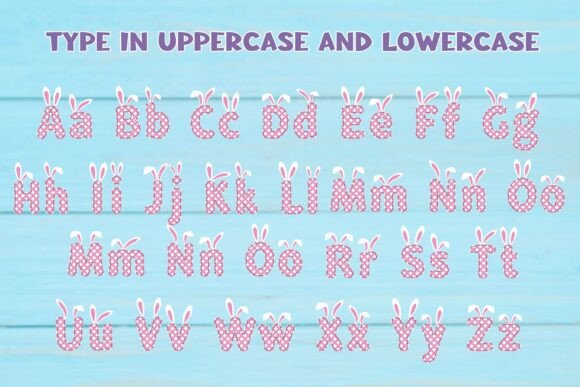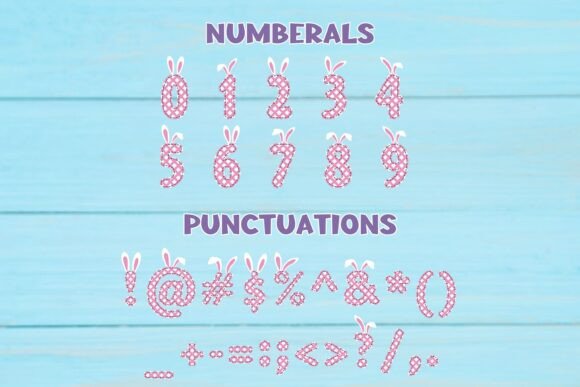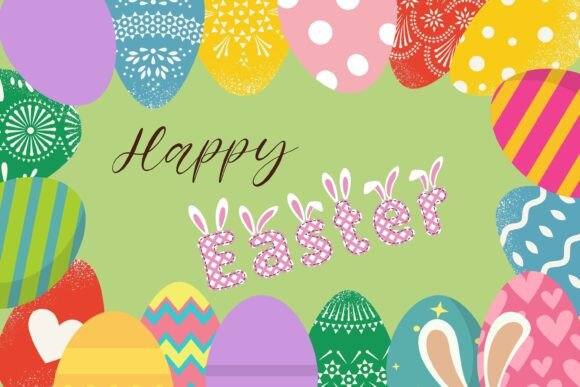
Introduction to Pink Easter Bunny Font
As a designer, have you ever found yourself brainstorming ideas for a festive Easter-themed project, only to be struck by the perfect vision, but hindered by the lack of the perfect design resource? We’ve all been there, and that’s exactly why we’re excited to introduce the Pink Easter Bunny Font – a vibrant, playful color font that brings a touch of magic to every Easter-inspired design.
With its captivating character and wide range of creative possibilities, the Pink Easter Bunny Font is a valuable addition to any designer’s toolkit. Whether you’re working on a t-shirt design, crafting digital imprints, or creating decorative cards, this enchanting font effortlessly melds with your project, elevating it to new heights. Plus, with its transparent background and high-quality design, you can rest assured that your project will stand out from the crowd.
Key Features of Pink Easter Bunny Font
- Transparent Background: The Pink Easter Bunny Font offers a transparent background, making it perfect for creative projects that require a seamless integration with other design elements.
- High-Quality Design Resource: This font is a high-quality design resource that can elevate your Easter-themed projects with its unique and playful style.
- Unique Characteristics: The Pink Easter Bunny Font features a distinctive, hand-drawn design with intricate details and a soft, pastel color palette.
- Perfect for Creative Projects: This font is ideal for creative projects, such as invitations, greeting cards, and social media graphics, that require a touch of whimsy and Easter-themed charm.
Honest Review: Pink Easter Bunny Font
I recently stumbled upon the Pink Easter Bunny Font, and I must say, it’s a delightful addition to any design project. As a designer, I’m always on the lookout for high-quality fonts that can elevate my creative work.
- ✨ Unique and playful design that’s perfect for Easter-themed projects
However, I do have a few minor quibbles. ⚠️ The font may not be suitable for more formal or professional projects, as its playful design may come across as too casual. Additionally, the font’s creative flair may be lost if used in a design with too many competing elements.
Overall, I’m impressed with the Pink Easter Bunny Font, and I think it’s a great addition to any design resource library. With its high-quality design and free download option, it’s a must-have for designers working on Easter-themed or spring-inspired projects.
Using in Creative Projects
To get the most out of the Pink Easter Bunny Font, consider the following tips: Use a transparent background to create a clean and modern look, and experiment with different font sizes and colors to add emphasis and visual interest. You can also pair it with other fonts to create a unique and eye-catching design.
The Pink Easter Bunny Font is commonly used in Easter-themed designs, such as Easter egg decorating, bunny illustrations, and spring-inspired graphics. You can also use it in other creative projects, such as children’s party invitations, nursery decor, and gift tags.